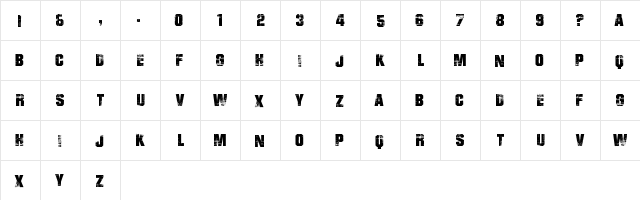
BAD GRUNGE Regular
Design Context for BAD GRUNGE Typeface
BAD GRUNGE trades polish for personality, using distressed and eroded forms to bring grit and attitude to creative work.
Suited to punk-influenced zines, underground music branding, streetwear, and raw, anti-corporate design.
Pro Tip: Pair BAD GRUNGE with intentionally raw or lo-fi design elements. Fighting against it with overly polished surroundings will undermine its personality.